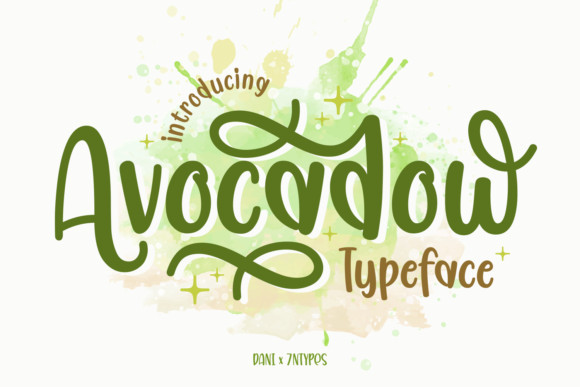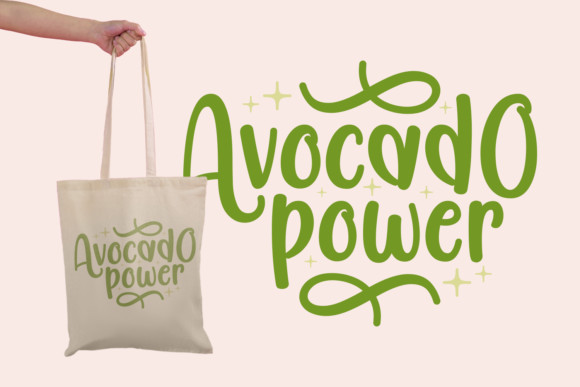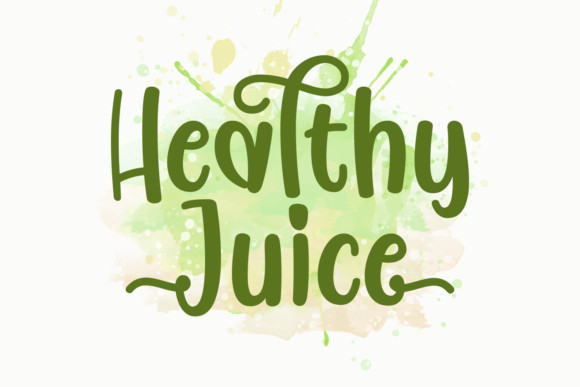
Avocadow Font
Avocadow embodies fun, quirkiness and authenticity. This enchanting dispaly font will turn any creative idea into a true standout. Get creative with its unique look and use it to brighten up all your upcoming projects!